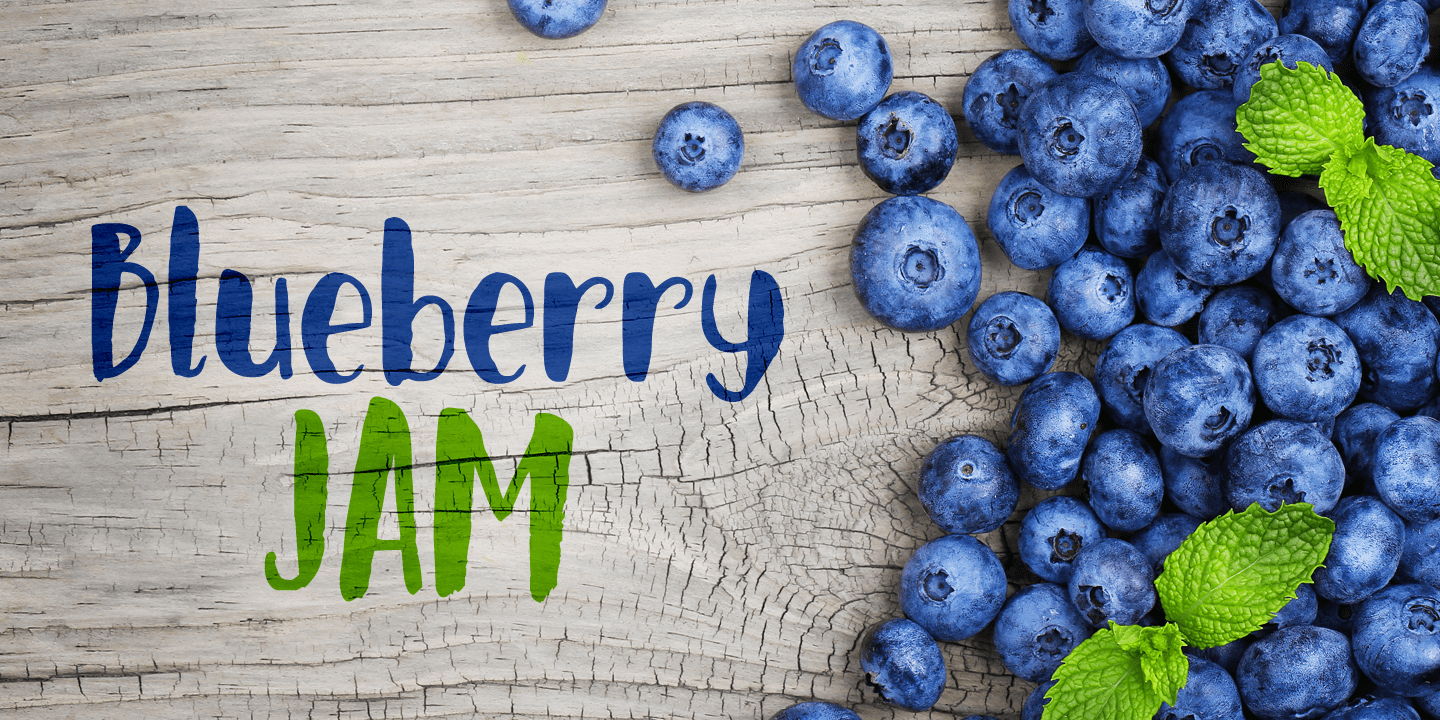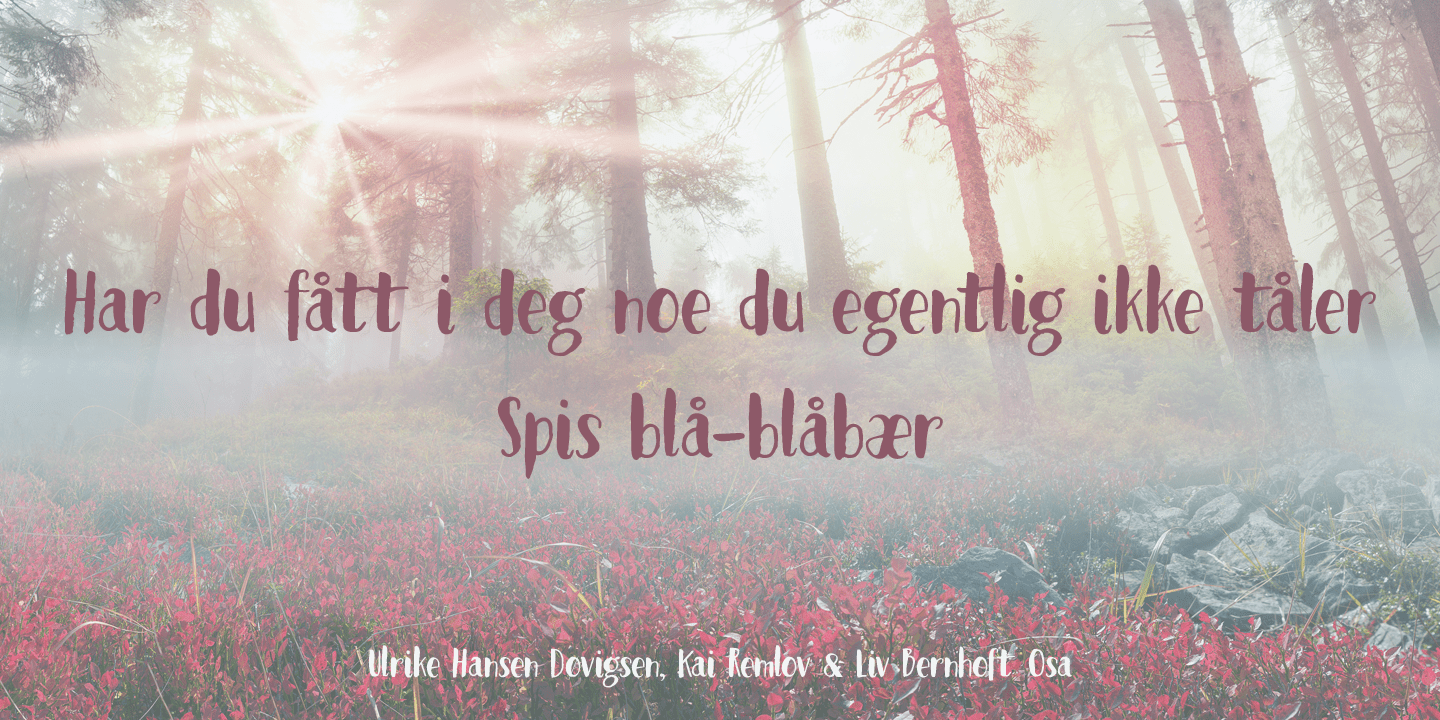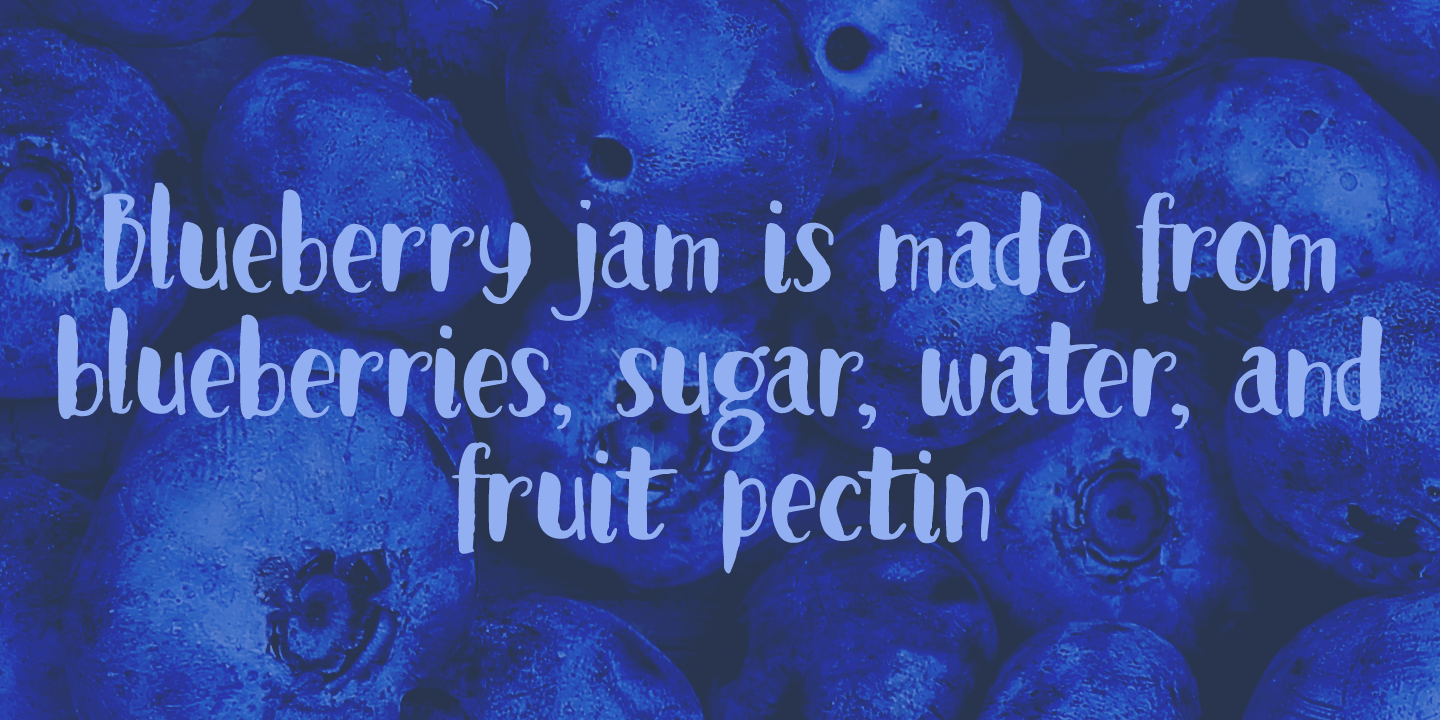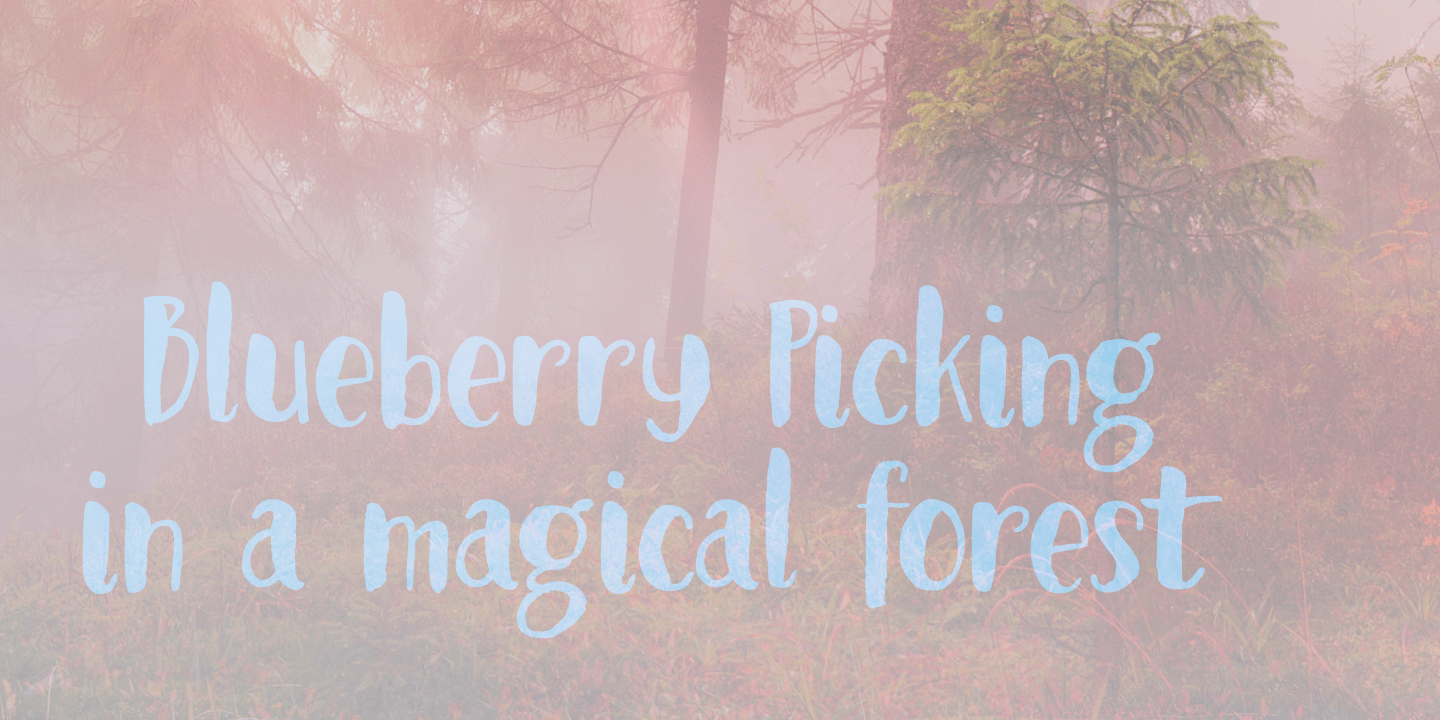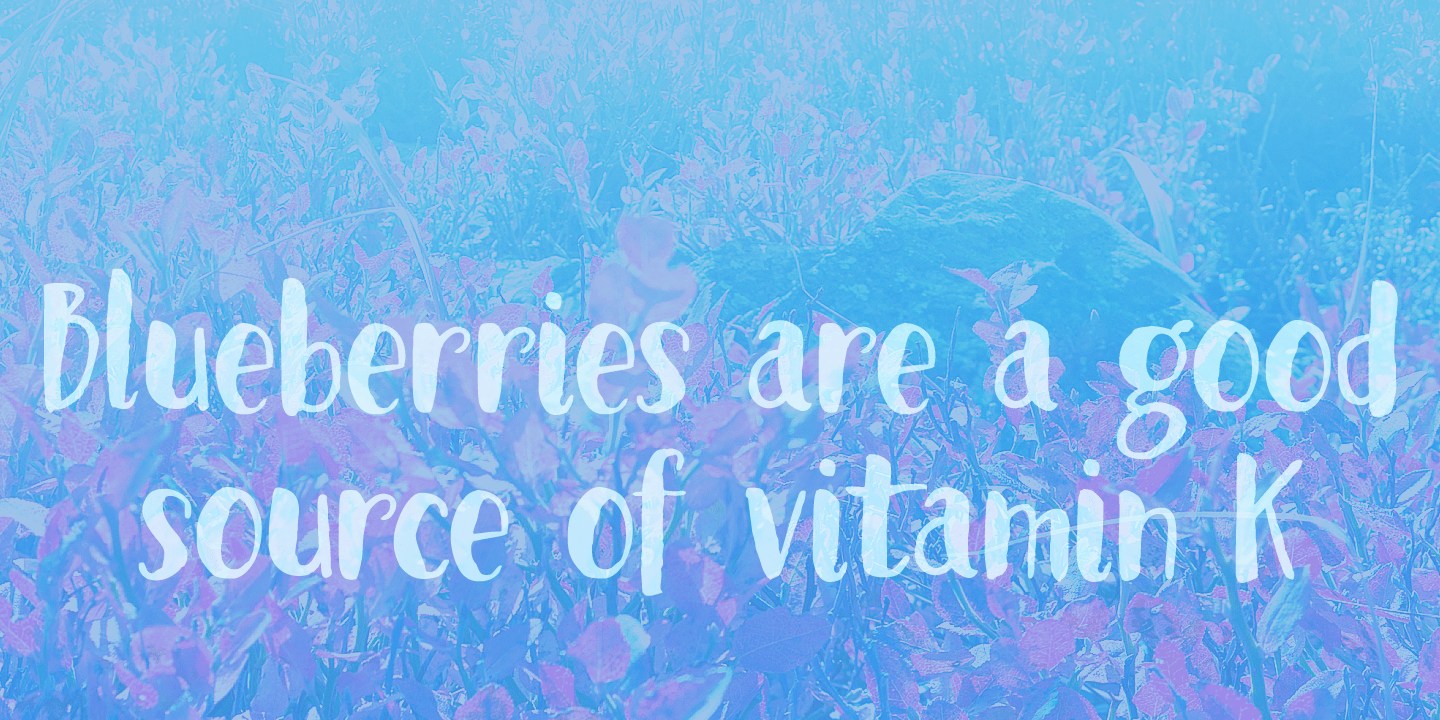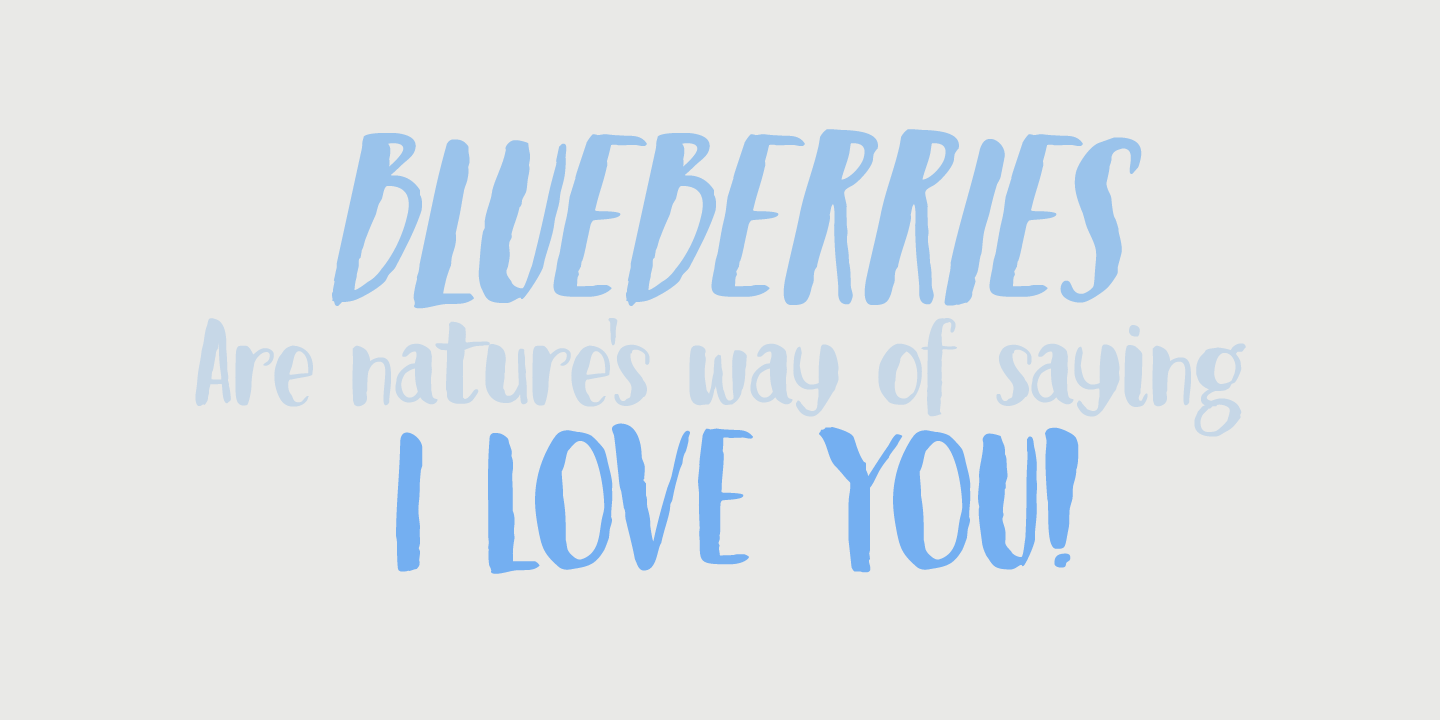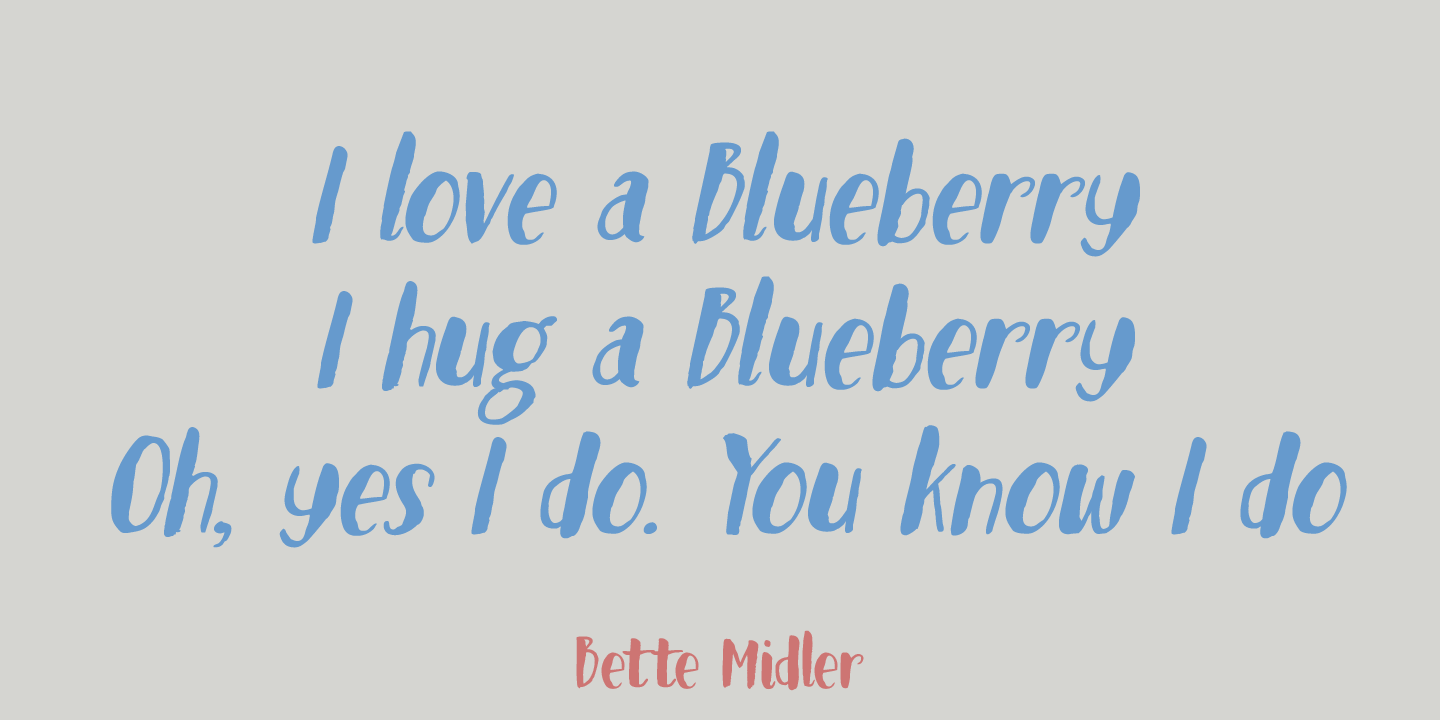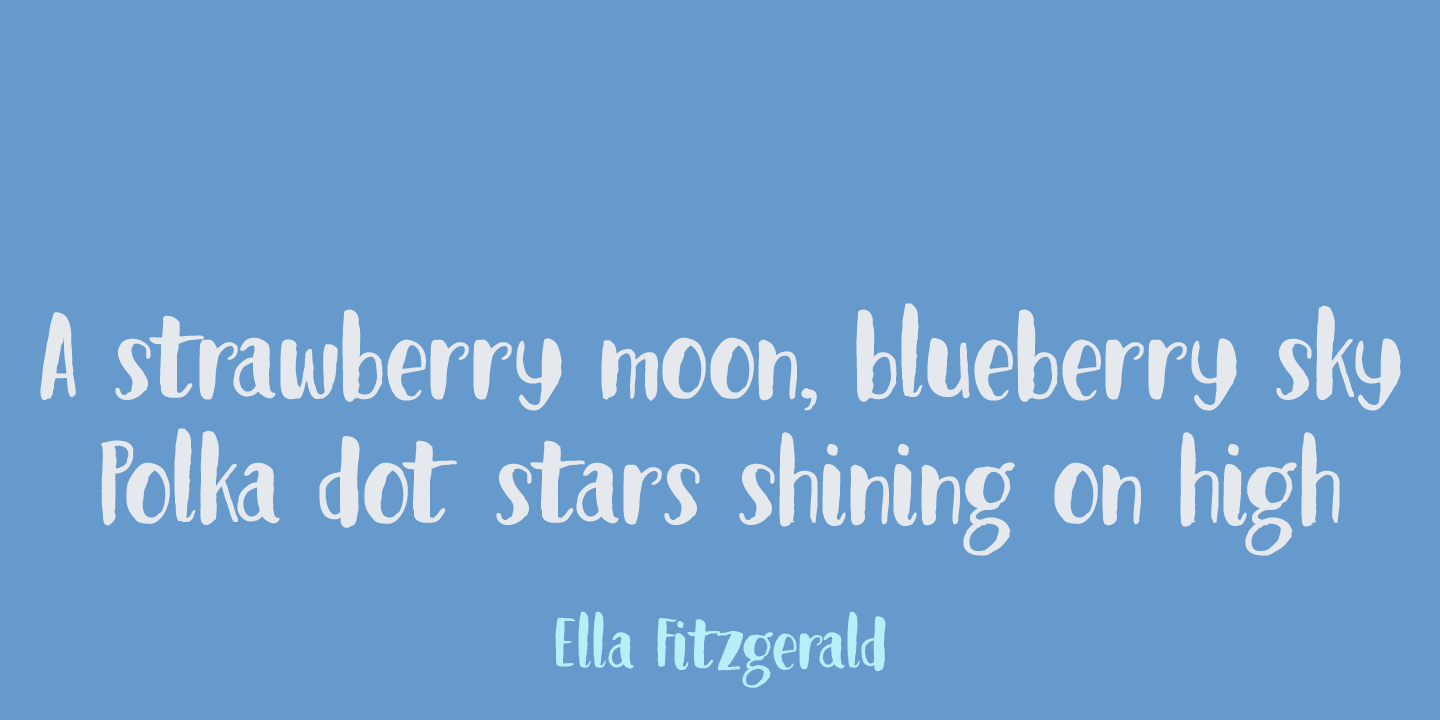
Blueberry Jam
Buy NowI love blueberries. When my brother and I were young, we used to pick them in the forest by the bucket. Afterwards, we?d always look like victims of a serial killer, but it was all worth it, as nothing quite tastes likes homemade blueberry jam.
I don't know why I named this cute little font Blueberry Jam. Maybe I was craving some?
Blueberry Jam is a highly legible, extremely cute and very handmade font. It would look good on just anything, but book covers, product packaging and homemade jam labels come to mind. Blueberry Jam comes with a bucketload of diacritics.